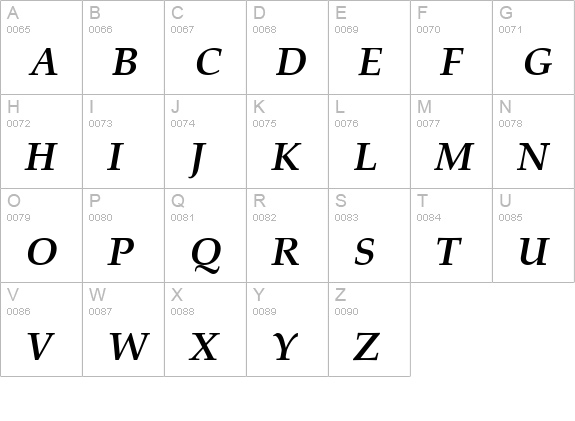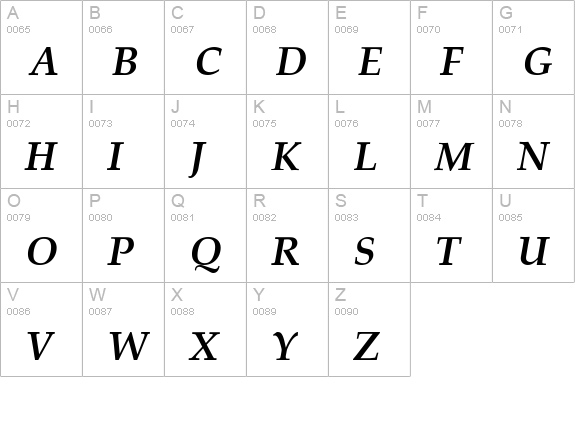
Criteria SSi Bold Italic is a strong, high-contrast, italic variant in the Criteria typeface family \xE2\x80\x94 well suited to headlines, attention-grabbing titles, and strong calls-to-action.
Criteria SSi Bold Italic font is a stunning display font that exudes elegance and sophistication. Its bold and italic design adds a touch of drama and flair to any project, making it perfect for headings, titles, and branding materials. The sleek lines and sharp angles of this font give it a modern and stylish look that is sure to catch the eye. What's even better is that Criteria SSi Bold Italic font is completely free to download at FontsMarket.com. This means you can add this gorgeous font to your collection without spending a dime. Whether you're a designer looking to enhance your projects or just someone who appreciates beautiful typography, Criteria SSi Bold Italic font is a fantastic choice that won't cost you a thing. Download it today and elevate your designs with this striking and versatile typeface.